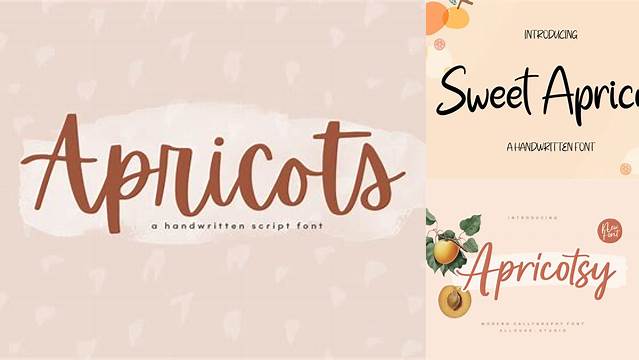
Apricots Font: Free Download & Sweet Design Ideas
Are you looking to add a touch of sweetness and warmth to your designs? Look no further than the apricots font! This delightful typeface can bring a unique and inviting feel to a wide range of projects. In this comprehensive guide, we'll explore everything you need to know about the apricots font, including its characteristics, where to find it for free download, and how to best utilize it in your creative endeavors. So, let’s dive in and discover how the apricots font can transform your designs from ordinary to extraordinary.
The apricots font is more than just a set of characters; it's a design element that can significantly impact the overall aesthetic of your project. Its playful and friendly nature makes it perfect for projects that aim to evoke feelings of joy, comfort, and approachability. Whether you're working on branding for a bakery, designing invitations for a baby shower, or creating social media graphics for a lifestyle blog, the apricots font can help you capture the right mood and connect with your audience on a deeper level. Its versatility allows it to be used in both headings and body text, providing a cohesive and visually appealing look to your designs. The unique curves and playful strokes of the apricots font set it apart from more generic typefaces, making your designs stand out and leave a lasting impression. Additionally, its legibility ensures that your message is clear and easy to read, which is crucial for effective communication. With the apricots font, you can add a touch of personality and charm to your projects, making them more engaging and memorable.
What Makes Apricots Font Special?
So, what exactly makes the apricots font so special? It's all about its unique characteristics. The apricots font often features rounded edges, playful curves, and a generally friendly and approachable aesthetic. It's designed to evoke a sense of warmth and sweetness, much like the fruit it's named after. This makes it particularly well-suited for projects targeting a younger audience, or those aiming for a light-hearted and cheerful vibe. Furthermore, the apricots font frequently includes stylistic alternates and ligatures, allowing for a customized and handcrafted feel. These details add depth and personality to the typeface, making it more than just a simple font; it becomes a design asset that can elevate your work. The attention to detail in the design of the apricots font ensures that it is both visually appealing and highly functional, providing a balance that is essential for effective communication. Its unique character shapes and spacing contribute to its readability, making it a versatile choice for a wide range of applications. Whether you're creating a logo, designing a website, or crafting marketing materials, the apricots font can help you achieve a distinctive and memorable look.
Using Apricots Font in Your Designs
Okay, you've got your apricots font downloaded and installed. Now what? Here's how to make the most of it in your designs:
- Branding: The apricots font can be a fantastic choice for brands that want to project a friendly, approachable, and slightly whimsical image. Think bakeries, children's stores, or even creative agencies.
- Invitations and Cards: Its playful nature makes it perfect for invitations to birthday parties, baby showers, or casual gatherings. Imagine a beautifully designed invitation with the apricots font announcing a fun-filled event.
- Social Media Graphics: Use it to create eye-catching headlines or text overlays on your social media posts. Its unique style will help your content stand out from the crowd.
- Website Design: Employ the apricots font in headings, subheadings, or even short paragraphs to add a touch of personality to your website. Just be mindful of readability, especially for larger blocks of text.
- Product Packaging: Consider using the apricots font on product packaging to convey a sense of fun and playfulness. This can be particularly effective for products targeting children or those with a youthful spirit.
When using the apricots font, it's important to consider the overall design context and ensure that it complements the other elements in your composition. Experiment with different font sizes, weights, and colors to find the perfect balance and create a visually appealing and harmonious design. Additionally, pay attention to the spacing and kerning of the letters to ensure that the text is legible and easy to read. By carefully considering these factors, you can effectively incorporate the apricots font into your designs and create a memorable and impactful visual experience for your audience.
Conclusion: Embrace the Sweetness of Apricots Font
The apricots font is a fantastic addition to any designer's toolkit, especially when you can find an apricots font free download. Its unique charm and versatility make it perfect for a wide range of projects, from branding to invitations to social media graphics. Just remember to use it responsibly and always check the license before using it in your work. So go ahead, download that apricots font, and let its sweetness inspire your next creative masterpiece! This typeface will surely infuse a distinctive and memorable touch into your designs, setting them apart from the rest.